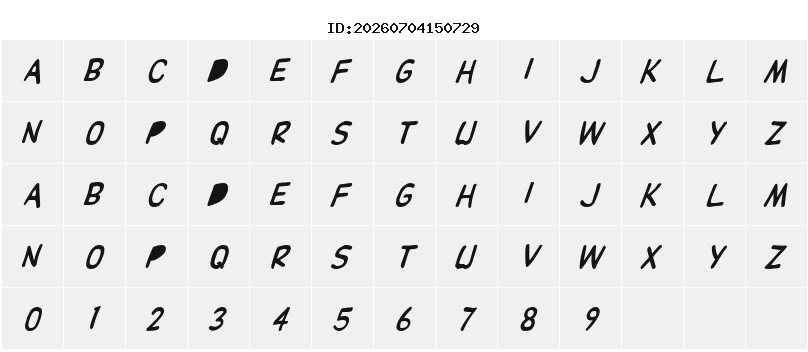
• Font Name: DupuyBALloon
• Font ID: Altsys Metamorphosis:DupuyBALloon Italic
• Full Font Name: DupuyBALloon Italic
• Version: Altsys Metamorphosis:4/12/92
• PostScript Name: DupuyBALloon Italic
About DupuyBALloon.ttf
DupuyBALloon.ttf is a modern, elegant sans-serif font designed for ultimate readability and visual harmony. Perfect for branding, headlines, web design, and print materials.